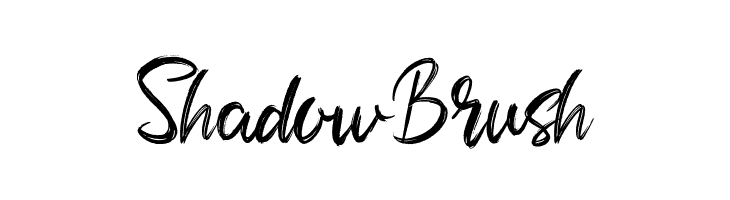
A bold, brush-style font with a lively and energetic feel.
A dynamic brush script font with fluid, expressive strokes.
A dynamic brush-style font with bold, sweeping strokes and a hand-painted look.
A bold, brush-stroke style font with an expressive and artistic appearance.
A bold, brush-style script font with dynamic, flowing strokes.
A bold, brush-style font with a modern and artistic touch.
A bold, brush-style script font with dynamic, hand-drawn strokes.
A playful brush-style font with bold, dynamic strokes and a hand-painted appearance.
A bold, expressive brush-style font with dynamic, hand-painted strokes.
A dynamic, brush-style font with expressive, hand-painted strokes.